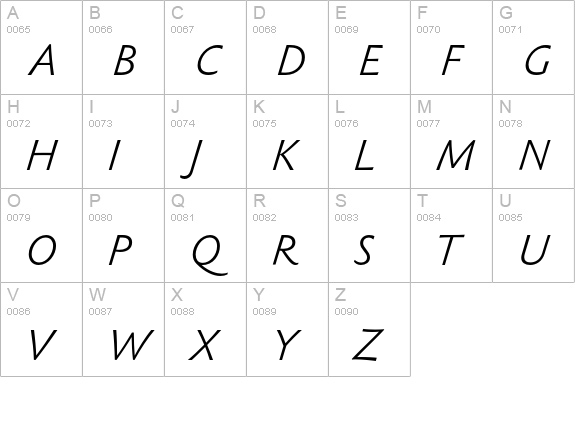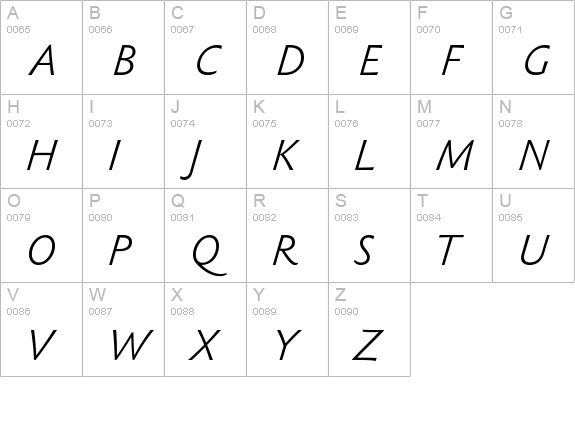
Sebastian Light Pro Italic Font Details
Sebastian Light Pro Italic is a refined, elegant, italic variant in the Sebastian typeface family \xE2\x80\x94 well suited to elegant body text, refined sub-headings, and luxury branding.
Sebastian Light Pro Italic is a beautifully designed font that exudes elegance and sophistication. It is the perfect choice for adding a touch of class to any design project, whether it be a logo, branding materials, invitations, or advertisements. This italic font features a delicate and refined appearance, with its slender and graceful letterforms. The subtle slant and slight cursive nature of the characters give it a sense of movement and fluidity, making it a versatile and dynamic choice for both print and digital applications. Sebastian Light Pro Italic is not only visually stunning, but it also offers exceptional legibility, ensuring that your message is conveyed with clarity and style. Its clean lines and balanced proportions make it easy to read, even at smaller sizes. What's more, Sebastian Light Pro Italic is available for free download at FontsMarket.com. This means that you can access and use this incredible font without any cost, making it an excellent choice for both personal and commercial projects. So, whether you're a designer looking to add sophistication to your creations or an individual looking to elevate your visual presentations, Sebastian Light Pro Italic is the perfect font for you. Download it now at FontsMarket.com and bring a touch of elegance to your designs.